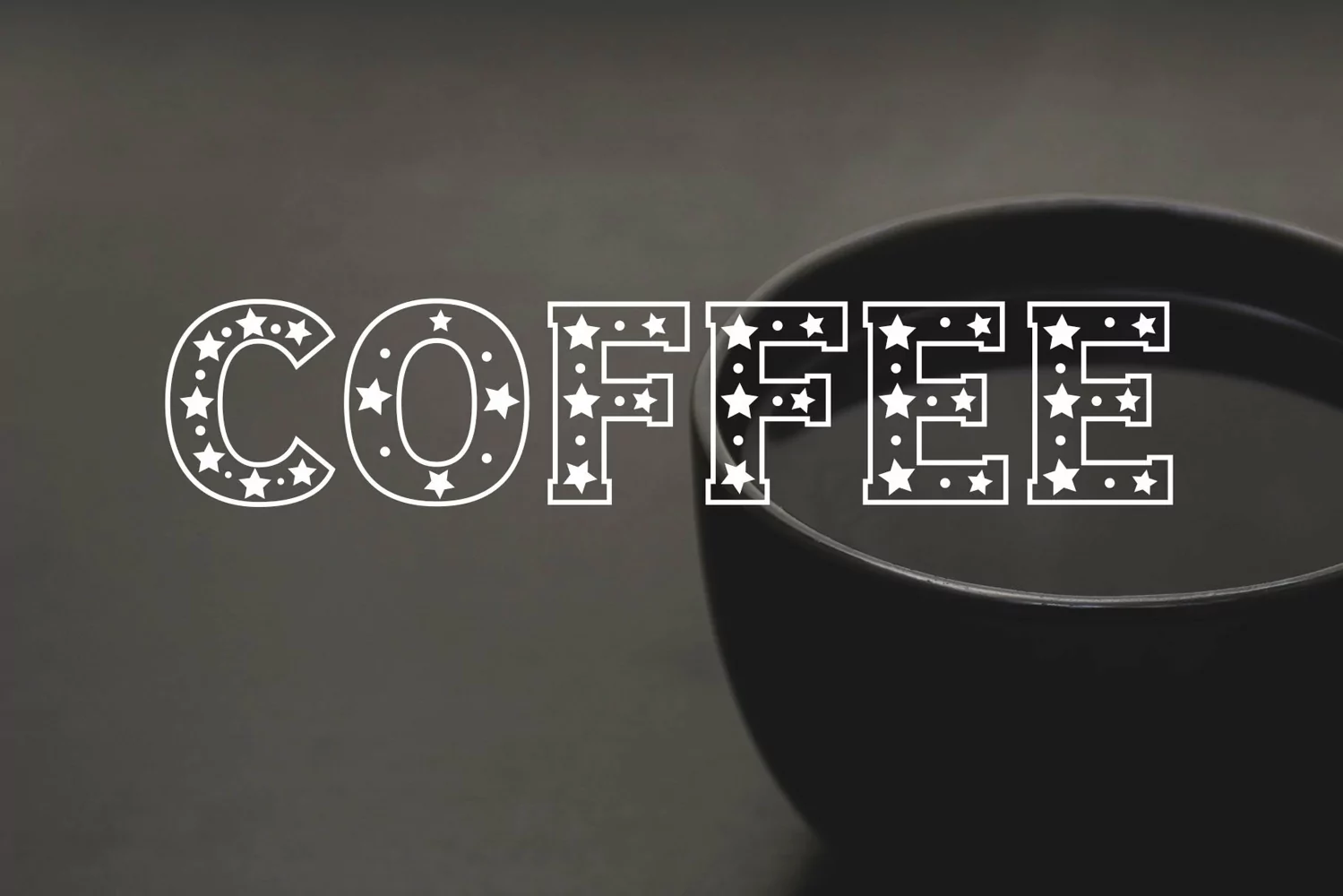
Star Slab typeface.
Star Slab is a bold and thick lettered decorative font, featuring a sea of stars as ornaments. Add it to your favorite designs and make them shine bright!
Great for posters, logos, packaging, invitations, website titles, T-Shirts and more.